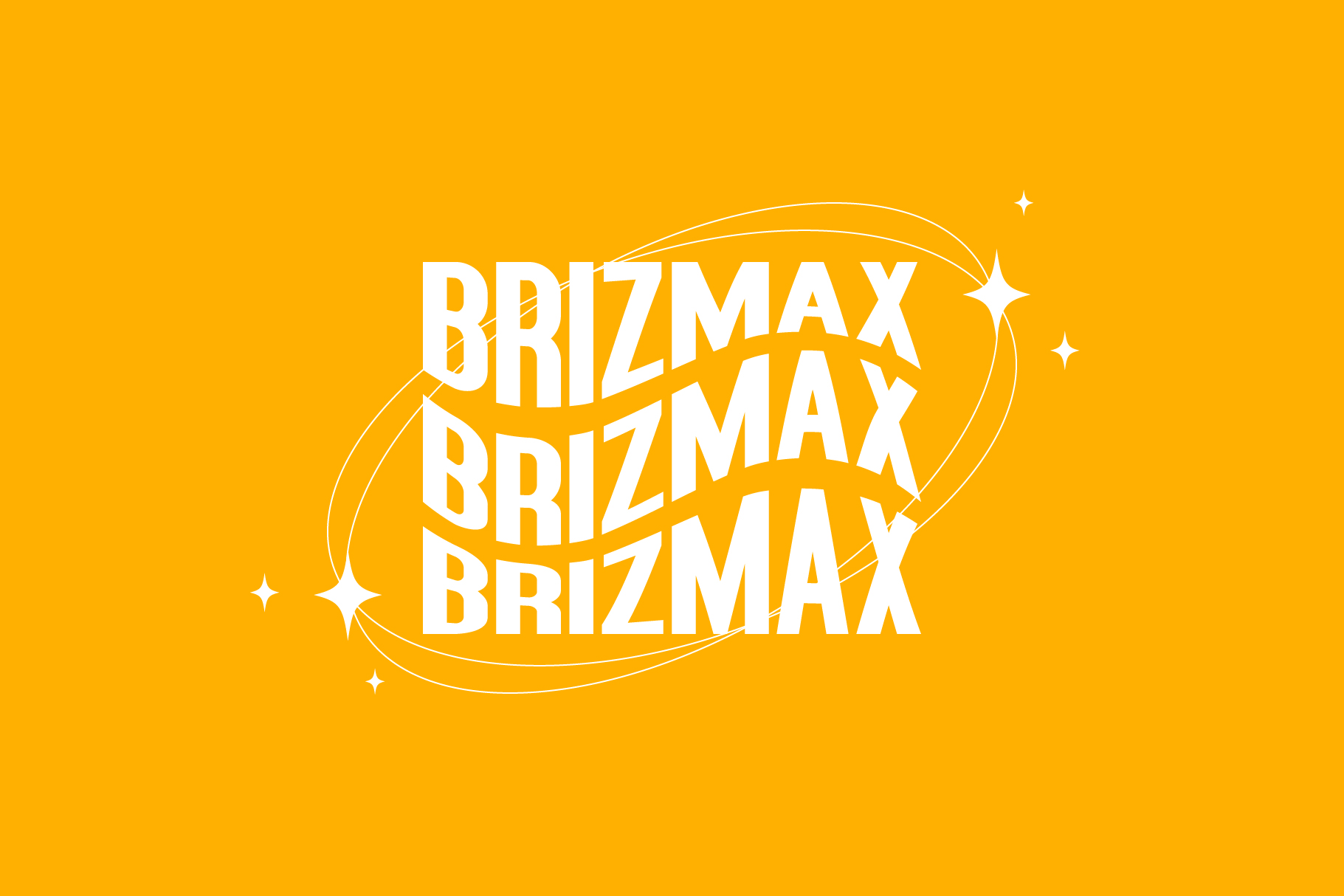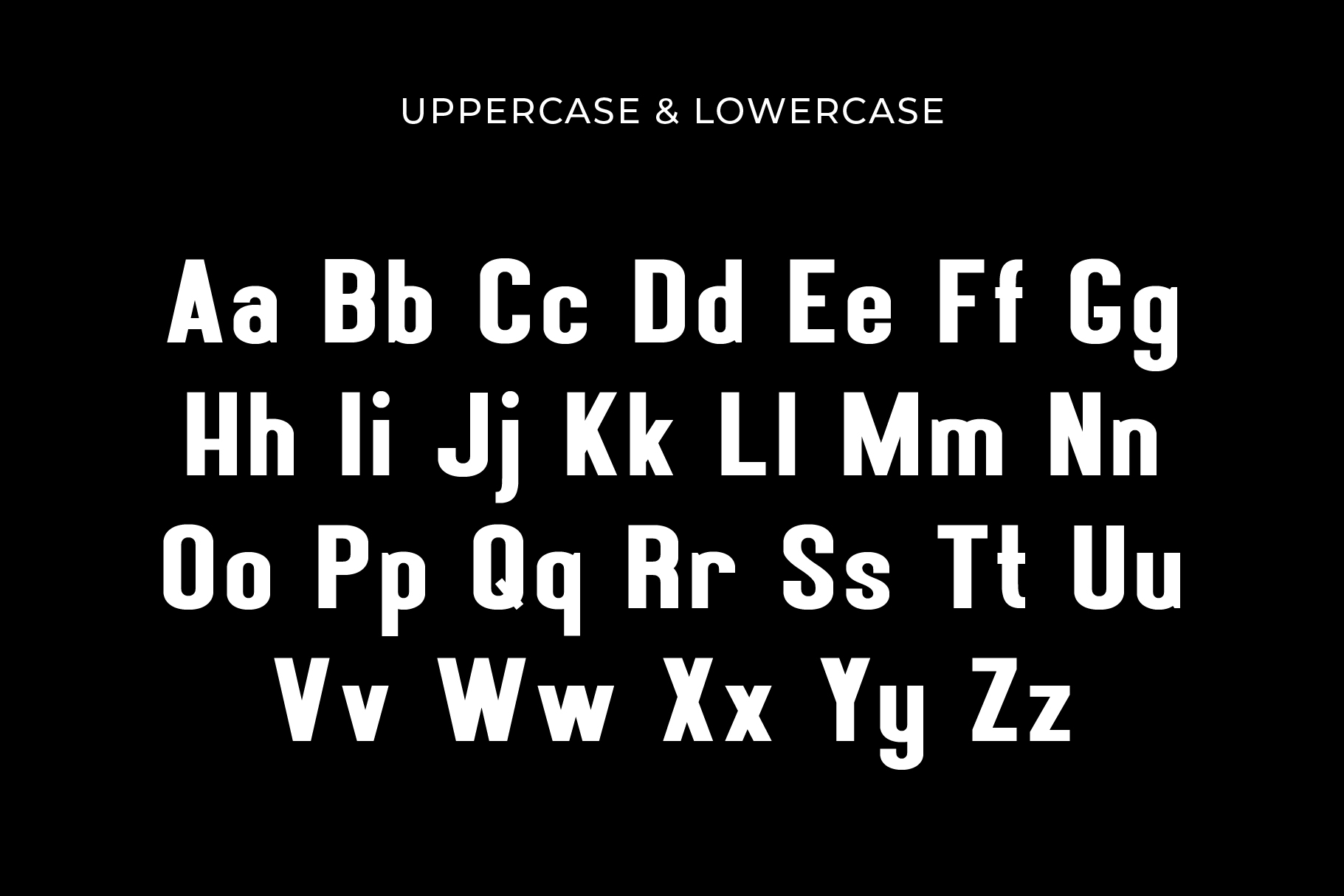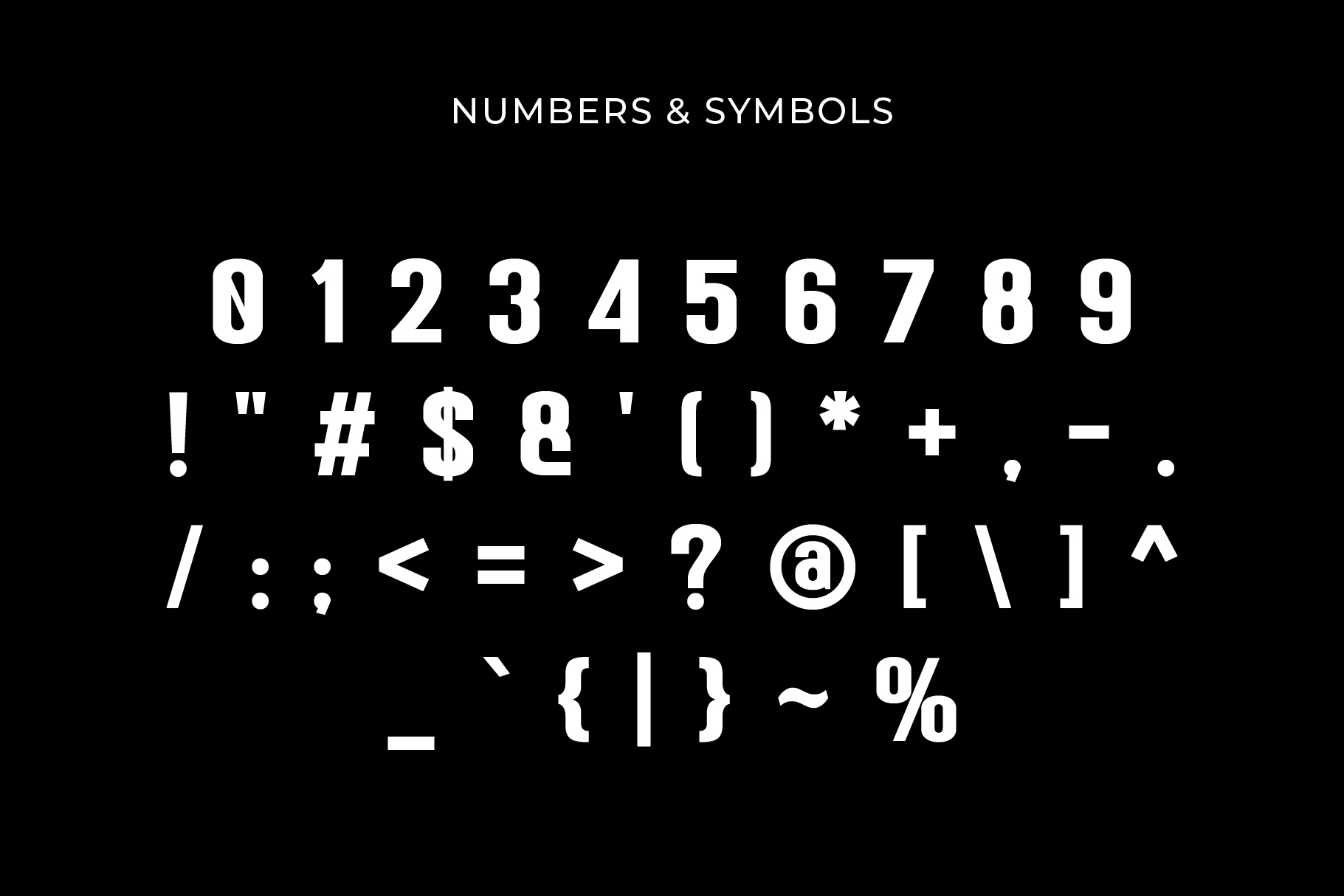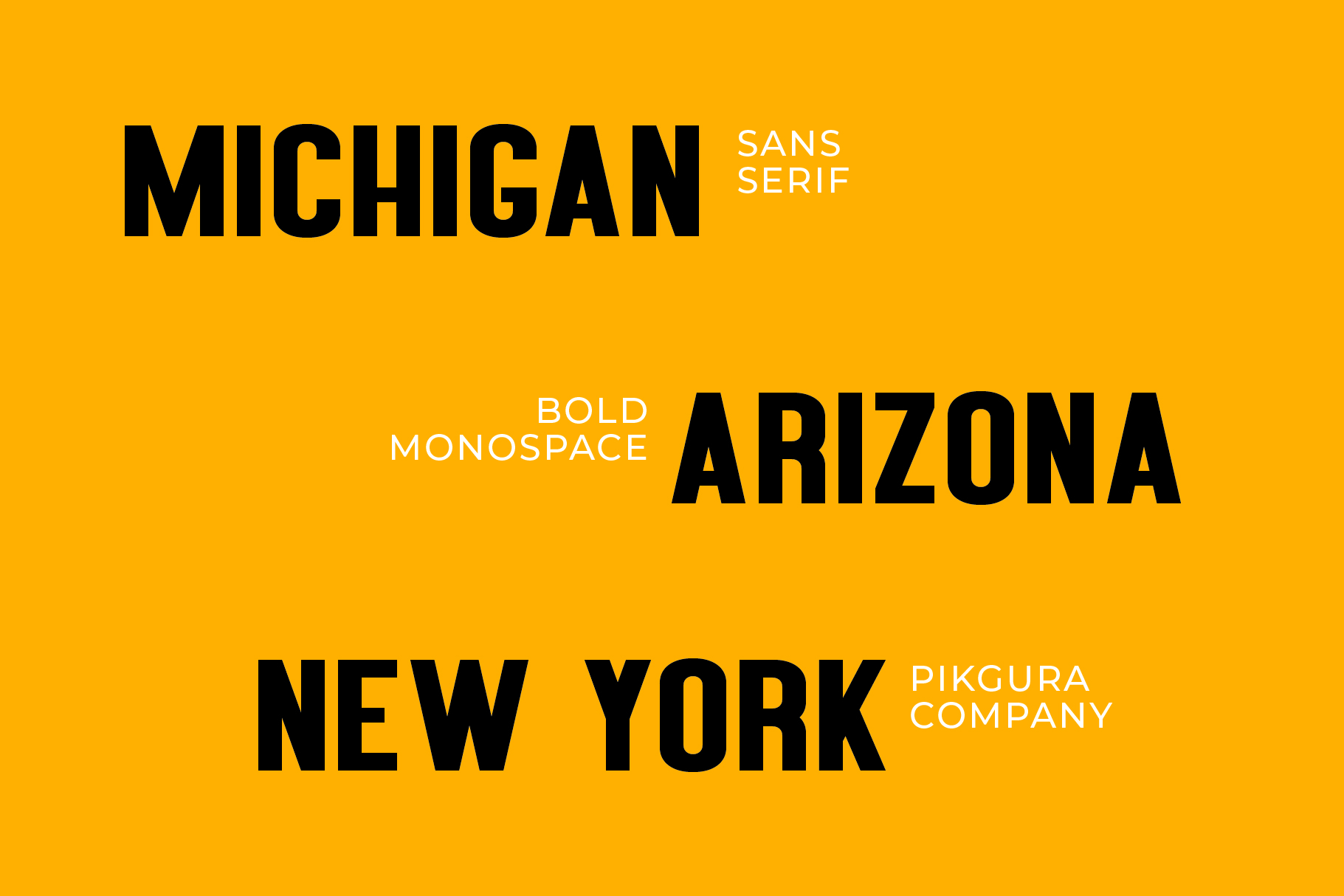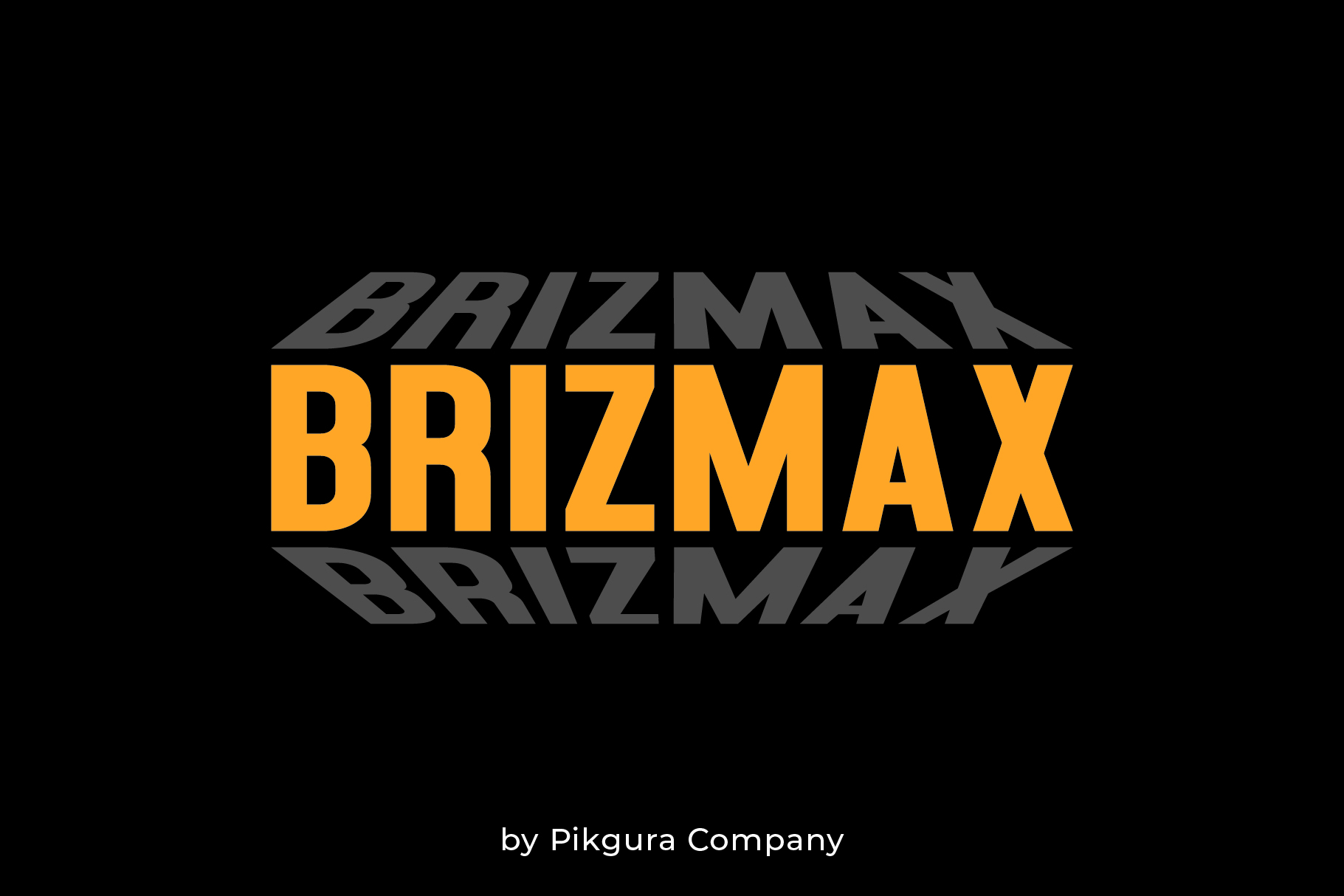
Brizmax
Introducing Brizmax, the bold and striking monospace font that makes a statement! Its strong lines and clear structure give your designs a modern, professional touch. Moreover, this font offers both uppercase and lowercase letters, numbers, plus basic punctuation so you have all the essentials.
Brizmax – Monospace Font